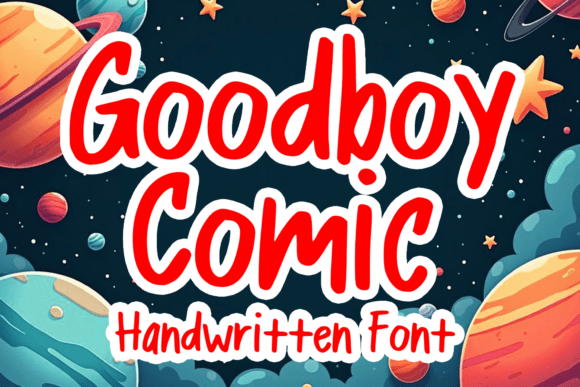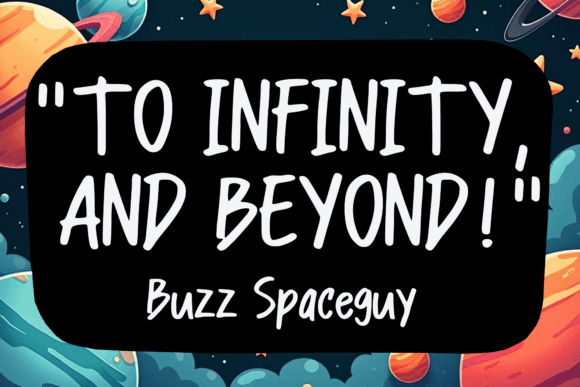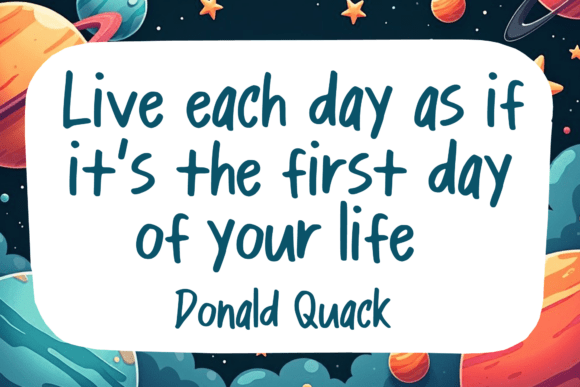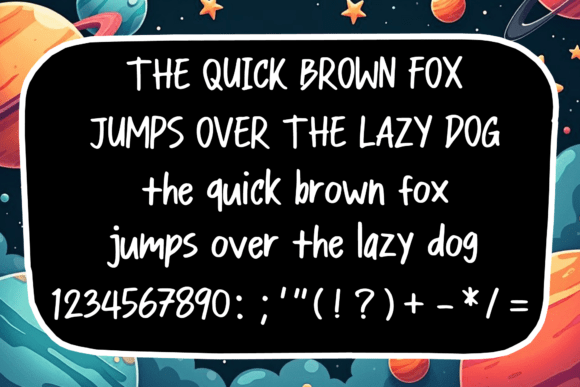
Goodboy Comic Font: A Playful Handwritten Font for Cricut & DIY Projects
About the Goodboy Comic Font
Welcome to the world of Goodboy Comic Font, a typeface that will inspire your next great project. Goodboy Comic is a playful, expressive and versatile marker font. It will elevate a wide range of design projects to the highest level. You can use this font for many design ideas such as stickers, t-shirt designs, amazing logo designs, magazine or book covers, comics, cartoon drawings, and many more. This font will add a super cool touch to your designs!
Goodboy Comic’s playful energy makes it ideal for headlines, short text blocks on posters, and branding projects for children’s products or brands with a similarly lighthearted aesthetic. It also excels in packaging design for playful products or in comic books and graphic novels. However, its informal nature makes it unsuitable for body text, long-form content, or user interfaces where readability is paramount.
Consider pairing Goodboy Comic with a clean sans-serif like Open Sans for a balanced contrast, or a geometric sans-serif like Montserrat for a more modern feel. For a more playful pairing, a rounded sans-serif such as Bebas Neue could work well. Avoid pairing it with overly ornate or highly stylized fonts which would clash with its friendly, hand-drawn character.
The font’s overall personality is best described as friendly and approachable, with a touch of vintage charm. This makes it a great choice for projects requiring a sense of nostalgia or informal fun, yet still maintaining professional polish when paired correctly.